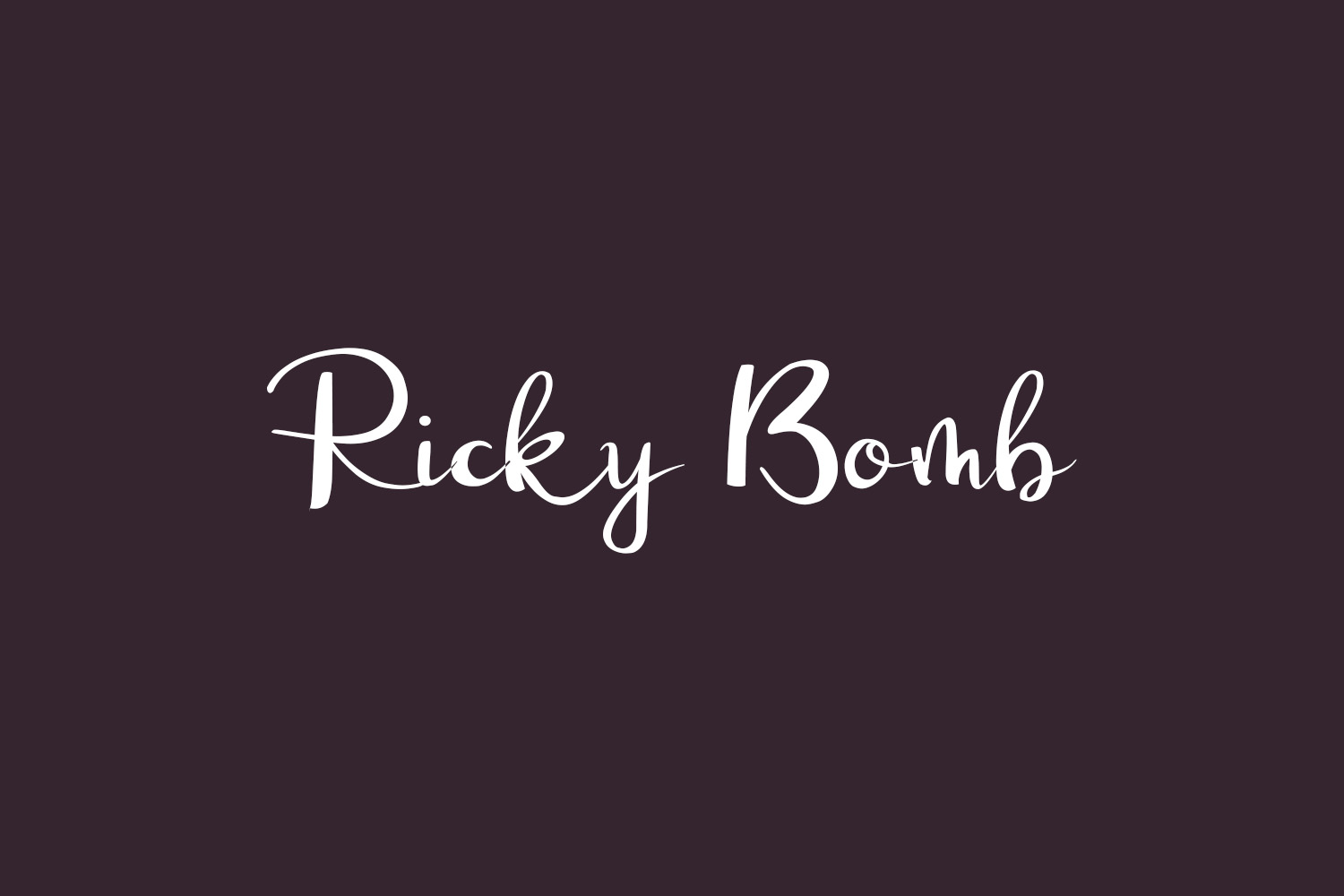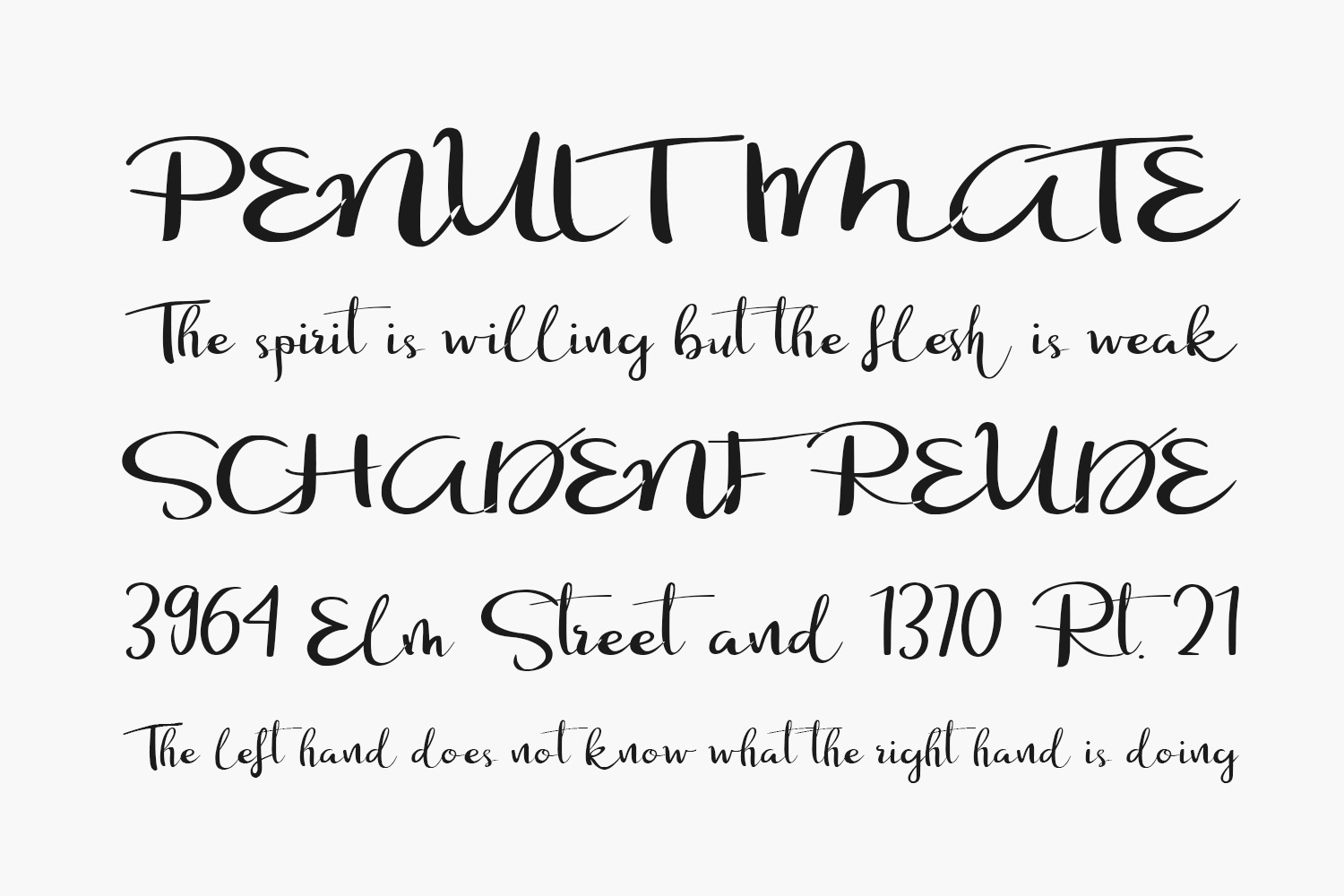
Ricky Bomb Free Font is a beautiful light handwritten font with a unique feel and a stunning impact. It will add a luxury spark to any design project that you wish to create. Ricky Bomb Free Font was designed by Nomlimofont and is free for personal use only. Please purchase the full version for commercial use.